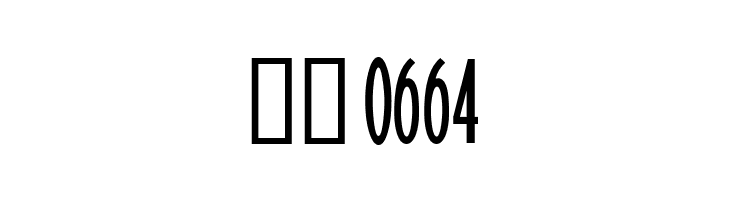
Force Commander Condensed Шрифта
- Шрифта: Force Commander Condensed
- вес: Condensed
A futuristic, geometric font with bold, rounded letterforms and uniform stroke width.